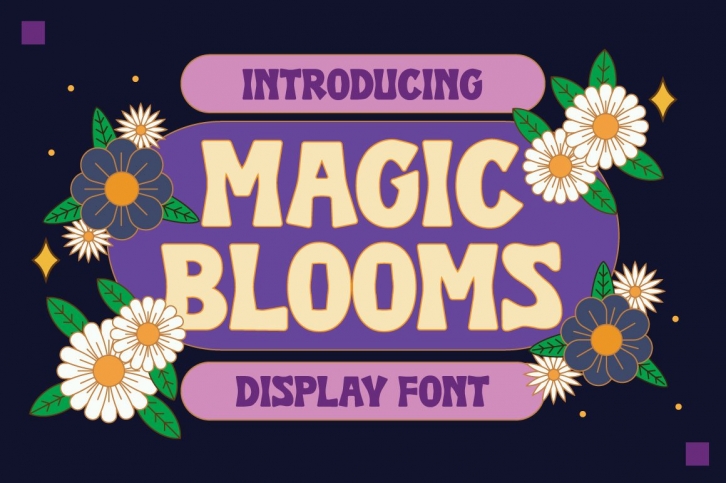
Magic Blooms is a gorgeous font that was realeased on March 16, 2021. The font can be used in many style contexts and design environments. Perfect for invitations, magazines, websites, logos, and more! It was designed by caocastudio and the file size is 20.11 MB. Thanks for checking out this font!